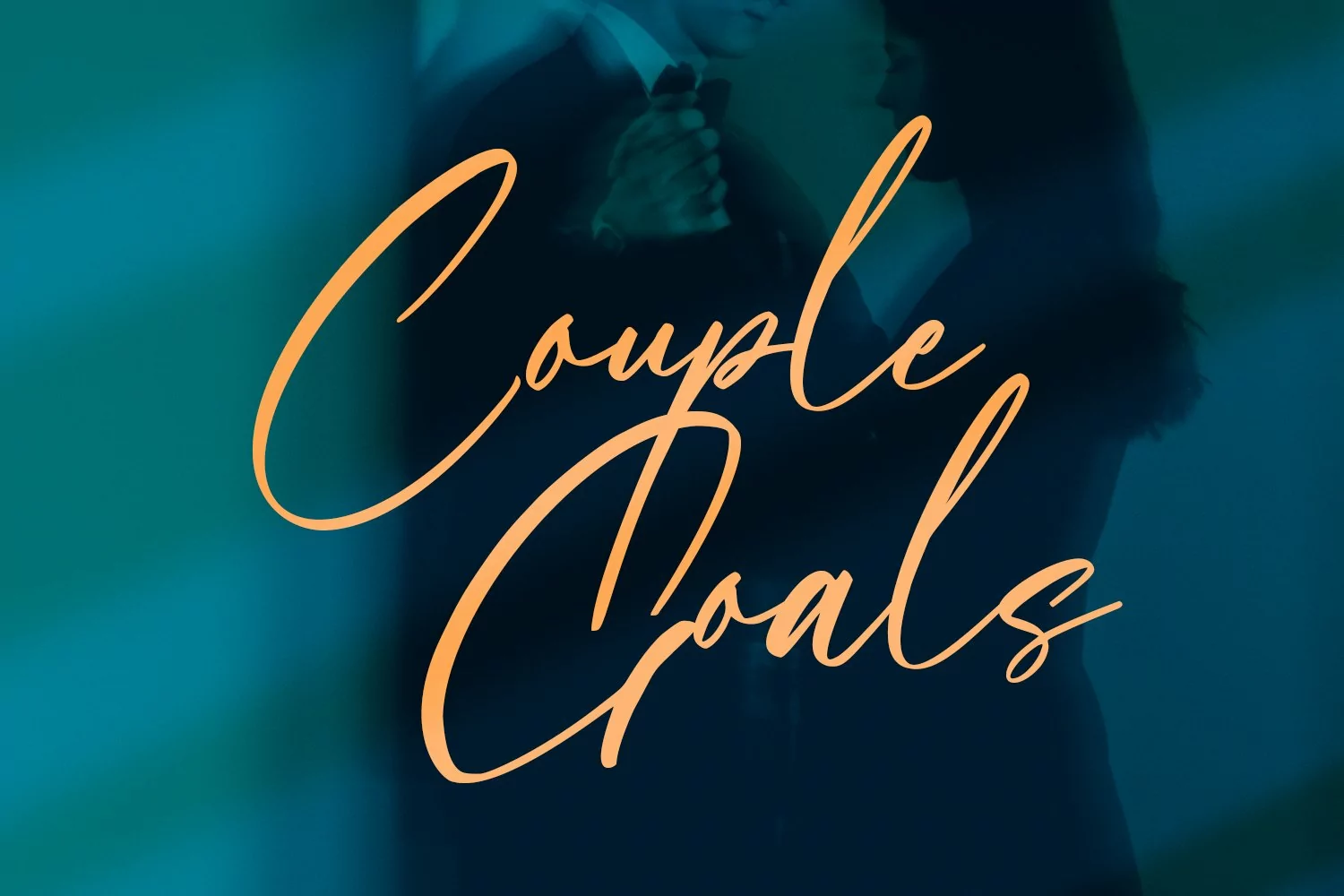
Chasterlize is a slanted signature script font. With regular contrast stroke, fun character with a rich of ligatures and alternates. To give you an extra creative work. Chasterlize font support multilingual more than 100+ language. This font is good for logo design, Social media, Movie Titles, Books Titles, a short text even a long text letter and good for your secondary text font with sans or serif. Make a stunning work with Chasterlize font.
Chasterlize